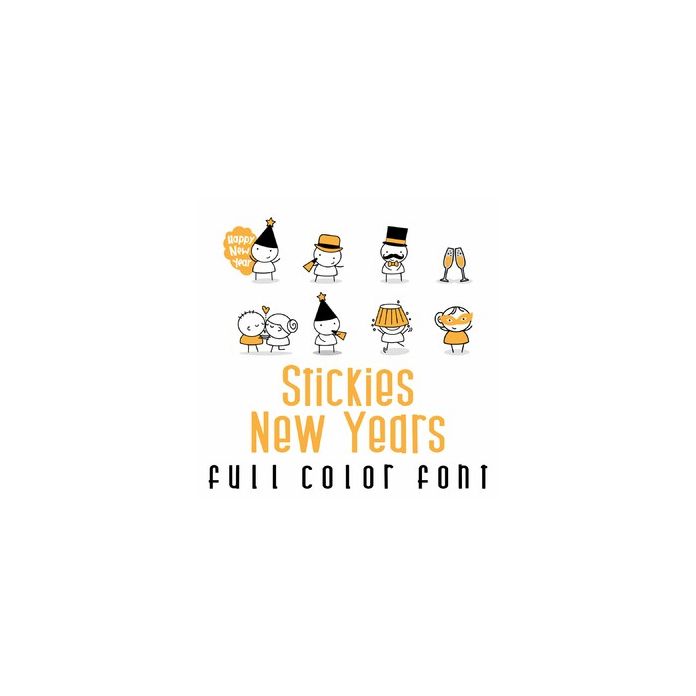
This fun full-color doodlebat font features 26 adorable stickies ready to party! Perfect for cards, crafts, gifts, scrapbook pages, planner stickers, New Year's and more!